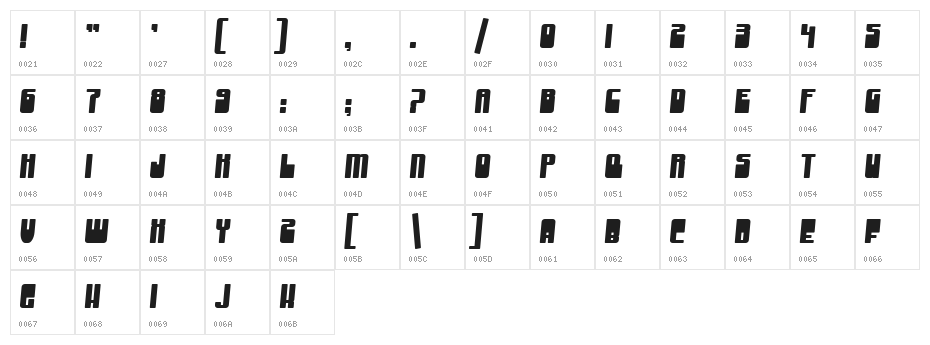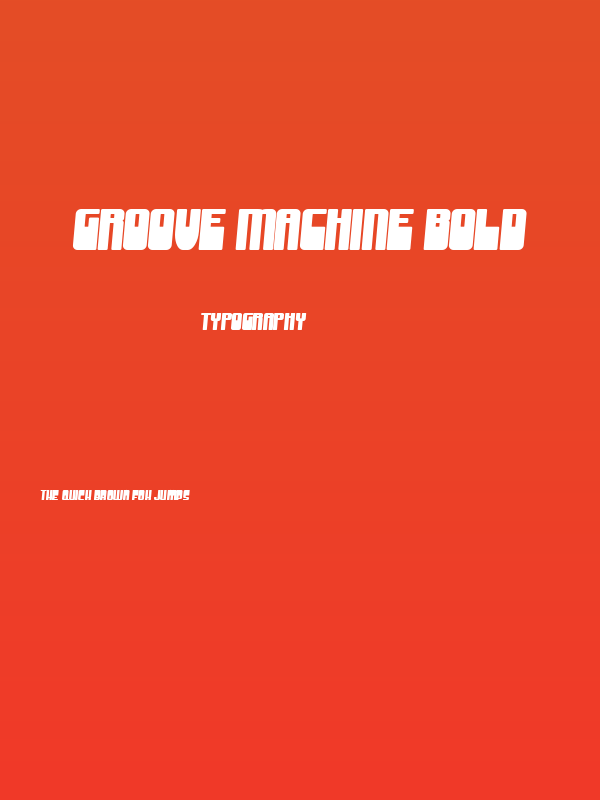
Groove Machine Bold Font
Groove Machine Bold Description
This font exhibits a bold and dynamic style, characterized by its thick, blocky letterforms that convey a sense of strength and modernity. The uppercase and lowercase letters maintain a consistent weight, emphasizing a robust and impactful appearance. The numbers and special characters follow the same design ethos, ensuring uniformity across all glyphs. The overall design is geometric, with rounded edges that soften the otherwise strong and assertive look. This font is ideal for projects that require a bold statement, such as headlines, posters, and branding materials. Its unique style captures attention and leaves a lasting impression.
| Proposed Projects | Ideal for headlines, posters, branding, and any project needing a bold statement. |